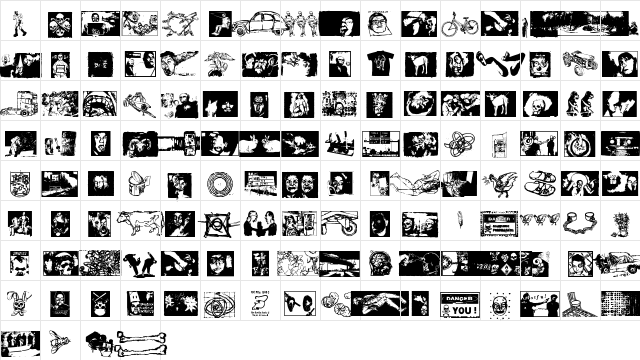
3-2-1-jungbats Regular
Designer: junkohanhero
Design Context for 3-2-1-jungbats
3-2-1-jungbats is a composed and adaptable typeface that performs quietly and consistently across a wide range of design contexts.